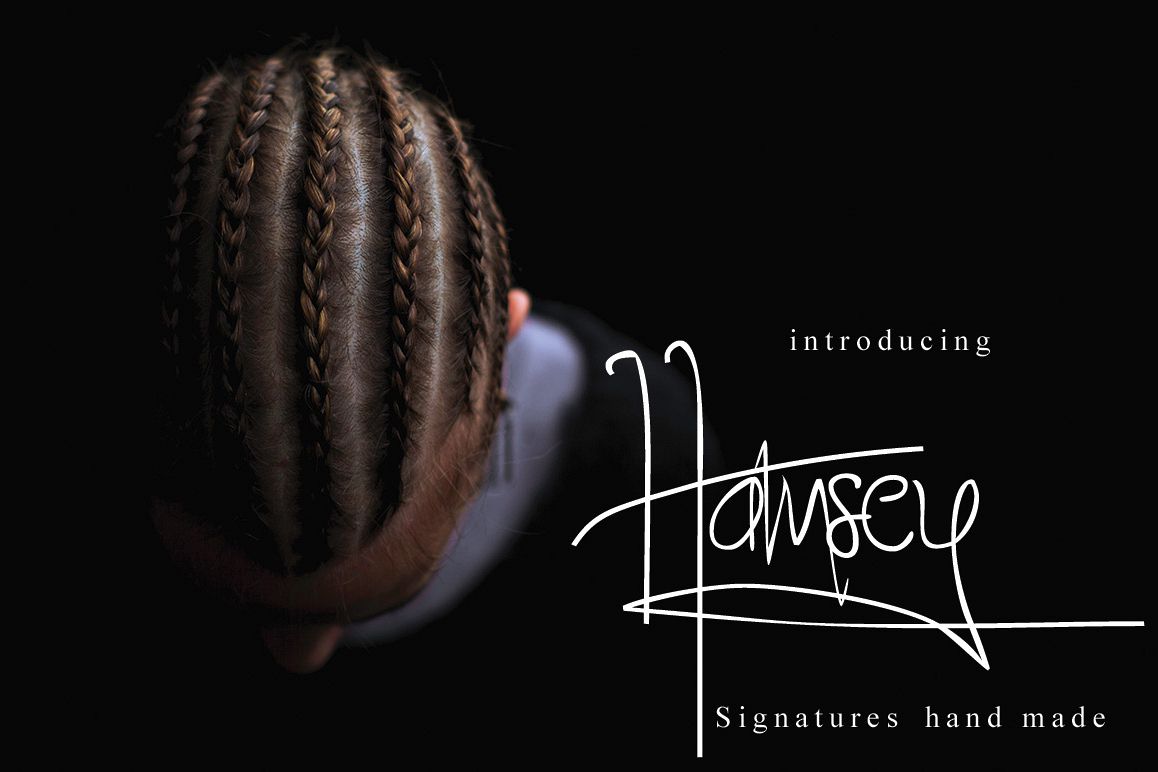
Hamsey
Hamsey Calligraphy signatures. This font was designed by handwriting, and it has a modern and
unique forms of calligraphy, the writing style is very natural and multiple
language support.
Languages supported: Breton, Catalan, Czech,
Danish, Estonian,French, German, Hungarian, Icelandic, Italian, Romanian,
Scottish Gaelic, Slovak, Latvian, Lithuanian, Norwegian, English, Finnish,
Polish, Portuguese, Slovenian, Spanish, Swedish, Turkish, Welsh. Basically, all
european languages that are based on latin alphabet.
Can be used for various purposes.such as
headings, logos, wedding invitation, t-shirt, letterhead, signage, lable, news,